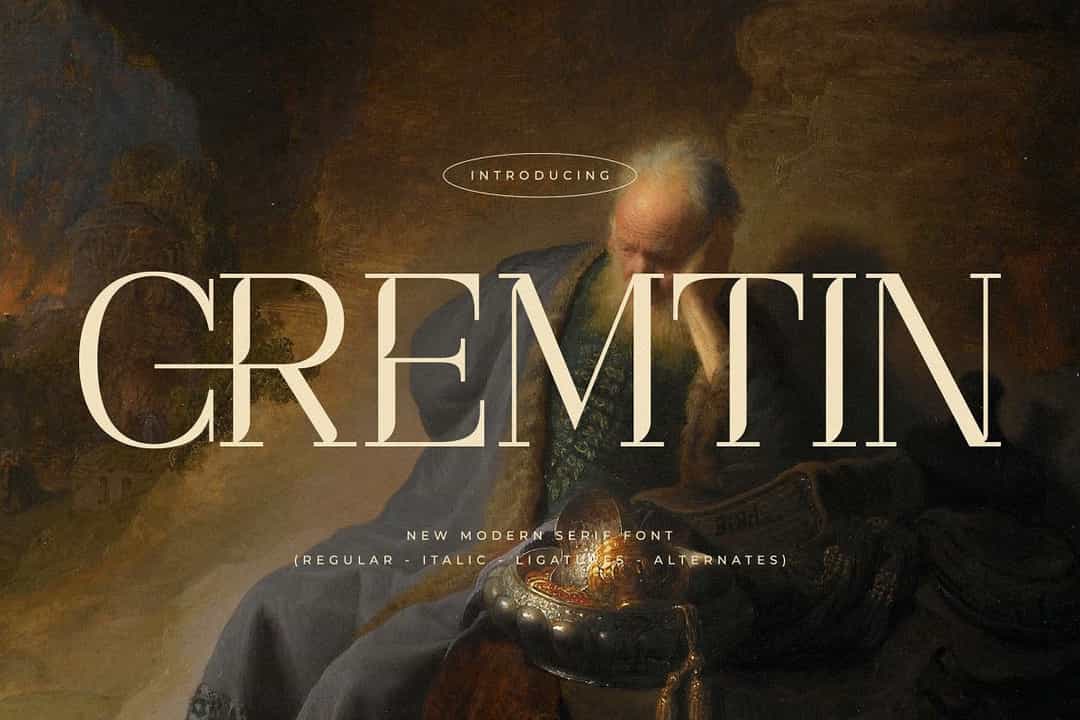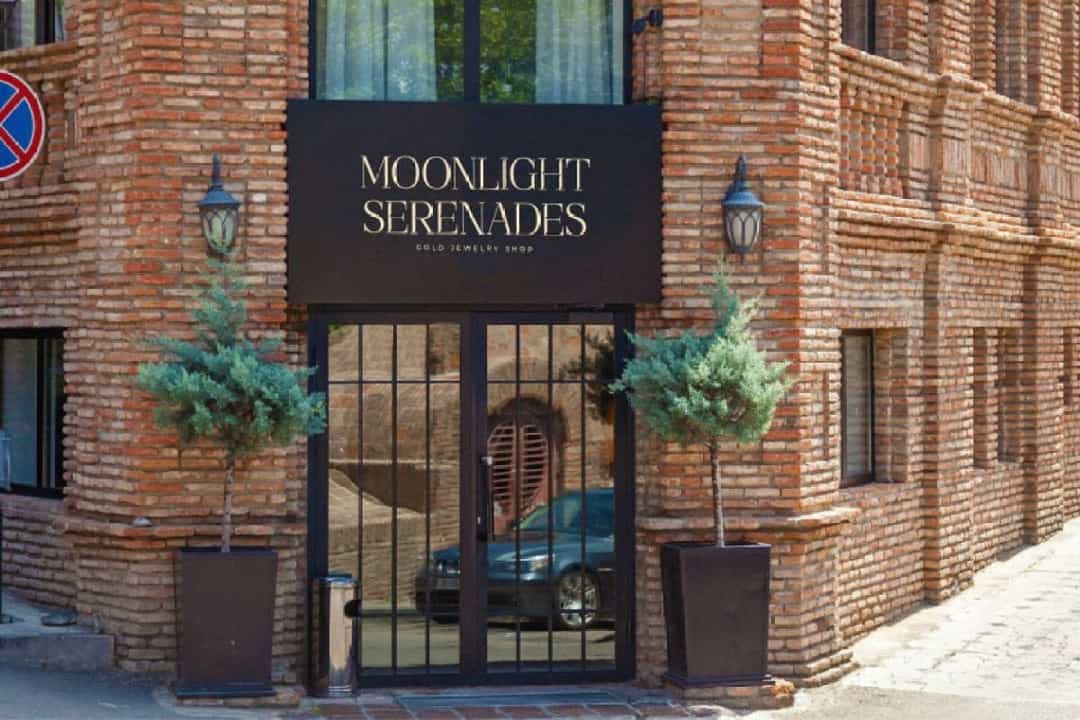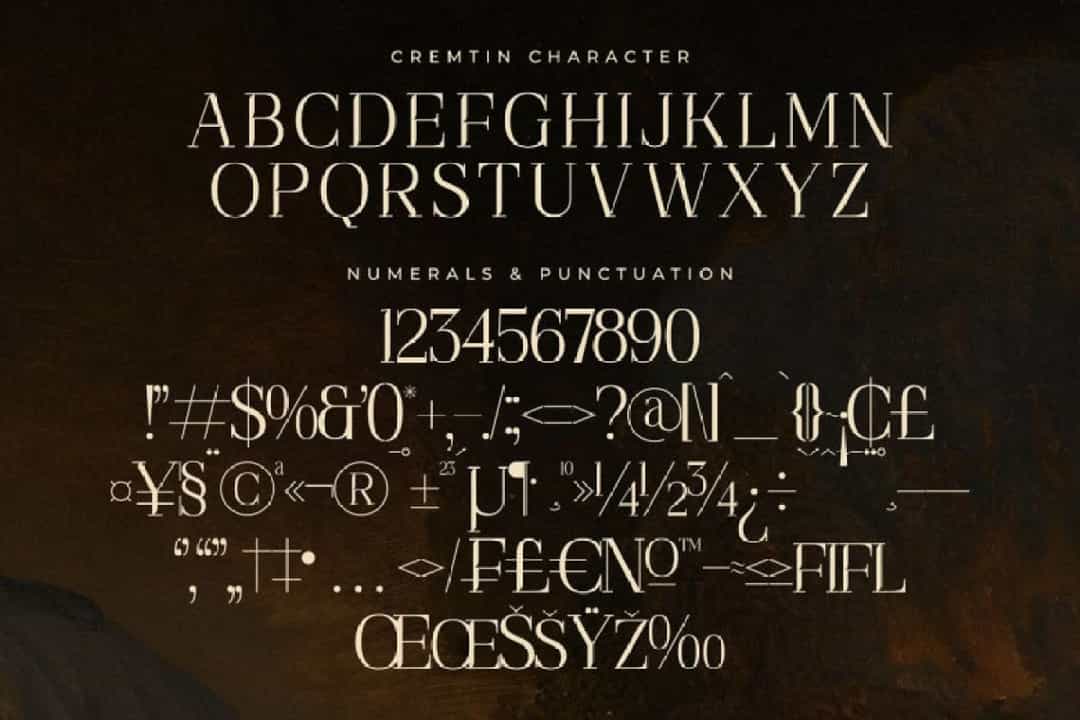
Cremtinis an elegant and timeless serif typeface that stands out with its distinct style and modern appearance. Ideal for logos, movie or book titles, fashion brands clothing magazines lettering quotes etc, Cremtin is perfect for sophisticated yet luxurious logos as well as many other applications such as lettering or quotes etc.